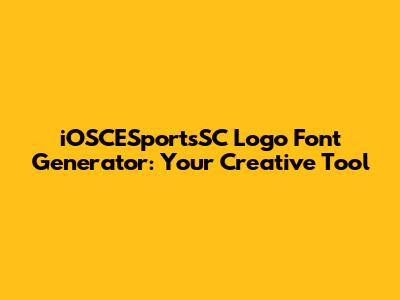
What's up, designers and branding gurus! Ever found yourself staring at a blank canvas, trying to nail that perfect logo font for your iOSCESportsSC project? Yeah, it's a common struggle, right? You need something that screams 'esports,' but also feels sleek, modern, and totally unique to your brand. Well, guys, I've got some awesome news for you! Introducing the iOSCESportsSC Logo Font Generator, your new best friend in the design world. This isn't just any font generator; it's specifically tuned to help you find those killer typographies that will make your iOSCESportsSC logo pop. Whether you're building a new team brand, revamping an existing one, or just experimenting with ideas, this tool is designed to spark your creativity and streamline the process. We're talking about fonts that can evoke speed, precision, power, and community – all the essential vibes for a successful esports brand. Forget endless scrolling through generic font lists that don't quite hit the mark. This generator is all about relevance, giving you curated options that understand the esports landscape. So, let's dive into how this bad boy can elevate your branding game and make your iOSCESportsSC presence unforgettable.
Why Font Choice Matters for Your iOSCESportsSC Brand
Alright, let's get real for a sec. You might be thinking, "It's just a font, how big of a deal can it be?" Oh, my friends, it's a huge deal! For your iOSCESportsSC logo font, the typography you choose is more than just letters; it's a silent storyteller. It's the first handshake your audience gets with your brand. Think about it: a bold, sharp font can convey dominance and aggression, perfect for a team that loves to dominate the competition. On the flip side, a more fluid, stylized font might suggest agility, intelligence, and intricate strategy. The iOSCESportsSC logo font generator understands this nuance. It helps you explore fonts that align with the specific personality you want to project. Is your team known for lightning-fast reflexes? You'll want a font that looks dynamic and fast. Are you the strategic masterminds of the scene? Perhaps a font with clean lines and a sense of order would be more appropriate. Color, weight, and kerning all play a role, but the fundamental shape of the letters is where it all begins. A poorly chosen font can make your brand look amateurish, uninspired, or even unreadable, especially when it's displayed on various platforms – from a tiny avatar on a streaming chat to a massive banner at a live event. That's why investing time in selecting the right font, with the help of a specialized tool like our generator, is absolutely crucial. It's about building trust, recognition, and a lasting impression that resonates with your target audience, fellow gamers, and potential sponsors. A strong font choice is the bedrock of a memorable and impactful iOSCESportsSC brand identity.
The Power of Customization with the iOSCESportsSC Logo Font Generator
Now, let's talk about what makes the iOSCESportsSC Logo Font Generator truly special: its focus on customization. We know that every iOSCESportsSC team, organization, or event is unique. You've got your own color schemes, your own mascot, your own playstyle, and your own story to tell. Generic fonts just don't cut it when you're aiming for a standout identity. This generator is built to help you discover fonts that feel tailor-made, even if they aren't literally custom-designed from scratch (though that's always an option for the big leagues!). It allows you to tweak parameters, experiment with styles, and visualize how different fonts look in the context of a logo. You can play around with different weights – from light and airy to heavy and commanding. You can explore various styles, like sans-serif for a modern feel, serif for a more classic and established look, or even script and display fonts for something truly artistic and attention-grabbing. The key is to find a font that not only looks good but also feels right for your brand's ethos. The iOSCESportsSC logo font generator provides a playground for this exploration. You can often preview your team name or brand slogan in the suggested fonts, seeing immediately if the legibility is there and if the overall aesthetic aligns with your vision. This iterative process of trying, tweaking, and visualizing is incredibly powerful. It helps you avoid the pitfalls of settling for the first decent-looking font you find and instead guides you towards a choice that truly represents the spirit and ambition of your iOSCESportsSC endeavor. It's about creating a visual language that speaks volumes before anyone even reads a single word of text.
How to Use the iOSCESportsSC Logo Font Generator Effectively
So, you've got this awesome iOSCESportsSC Logo Font Generator at your fingertips. Awesome! But how do you make sure you're getting the most bang for your buck, creatively speaking? It's all about a smart approach, guys. First off, know your brand identity. Before you even touch the generator, take a moment to really think about what your iOSCESportsSC brand represents. Are you fierce and aggressive? Sleek and futuristic? Friendly and community-focused? Jot down some keywords that describe your brand's personality. This will be your compass. Next, experiment wildly. Don't be afraid to try out a bunch of different styles. Play with the settings – adjust letter spacing (kerning), line height (leading), and even explore different weights (thin, regular, bold, black). The iOSCESportsSC logo font generator is designed for this playful exploration. See what catches your eye, even if it's not what you initially expected. Third, consider legibility and scalability. A super fancy, intricate font might look amazing on a large screen, but can it still be easily read when shrunk down to an app icon or a social media profile picture? Always test your chosen font in various sizes. Our generator often provides previews, so use them! Make sure the core message and your brand name are crystal clear, no matter the context. Fourth, get feedback. Once you've narrowed down your options, show them to a few trusted friends, teammates, or colleagues. Ask them what vibe they get from each font. Does it match the personality you described earlier? Their fresh perspective can be invaluable. Finally, think about the long term. Will this font still feel relevant and strong a year or two from now? Avoid overly trendy fonts that might quickly become dated. The iOSCESportsSC logo font generator can help you find timeless options that have staying power. By following these steps, you're not just picking a font; you're making a strategic branding decision that will serve your iOSCESportsSC venture well into the future. It’s about building a visual foundation that’s as robust as your gaming skills!
Exploring Diverse Font Styles for Esports
When you're diving into the iOSCESportsSC Logo Font Generator, it's super important to remember the sheer diversity of styles out there and how they can translate to the esports world. We're not just talking about bold and italic, guys. Think about the nuances! For instance, sans-serif fonts are your go-to for a clean, modern, and often futuristic aesthetic. Think fonts like Montserrat, Bebas Neue, or Oswald. These are fantastic for conveying professionalism, speed, and a cutting-edge feel, which is perfect for many competitive iOSCESportsSC teams. Then you have serif fonts. While sometimes seen as more traditional, modern serifs can add a touch of gravitas, authority, and a sense of heritage or legacy. Imagine a serif font for an established esports organization or a league that wants to project a long-standing, respected presence. We're talking fonts that feel solid and trustworthy. But that's not all! We also have display fonts and script fonts. These are your wild cards. Display fonts are often highly stylized and unique, designed to make a statement. They can be edgy, geometric, futuristic, or even hand-drawn in appearance. These are brilliant for grabbing attention and can inject a ton of personality into your iOSCESportsSC logo, especially if your brand is aiming for something truly distinctive or rebellious. Script fonts, while less common in traditional esports logos due to legibility concerns at small sizes, can sometimes work for specific niches, perhaps conveying elegance or a unique, flowing energy. The iOSCESportsSC logo font generator helps you explore these categories, allowing you to filter or see examples that lean towards each style. Remember to consider the feeling each font evokes. Does it match your team's performance style? Does it resonate with your target audience? The goal is to find a font that visually communicates your brand's essence and makes it instantly recognizable in the fast-paced, dynamic world of iOSCESports.
The Future of Logo Design with Font Generators
Looking ahead, the iOSCESportsSC Logo Font Generator and similar tools are seriously changing the game for logo design, especially in niche and dynamic fields like esports. We're moving beyond the days of relying solely on a graphic designer's personal font library or struggling with generic, overused options. These generators, particularly those tailored like ours for iOSCESportsSC, are becoming indispensable because they democratize design. They empower individuals and small teams, who might not have huge budgets for custom branding, to create professional-looking logos. The ability to quickly iterate, test different styles, and visualize results in real-time is a massive advantage. Think about the speed! You can brainstorm and mock up multiple logo concepts in the time it used to take to find and license a single font. Furthermore, the iOSCESportsSC logo font generator can incorporate AI and machine learning in the future. Imagine a tool that not only suggests fonts based on keywords like 'aggressive,' 'fast,' or 'strategic' but also analyzes successful logos in the iOSCESportsSC space and suggests trending yet timeless typographies. It could learn what makes a logo visually appealing and effective for engagement within the esports community. This evolution means that logo design becomes more data-driven and user-centric. We'll see tools that offer even more granular control – perhaps suggesting unique ligatures, custom kerning pairs, or even subtle stylistic variations within a single font family to perfectly match a brand's unique fingerprint. The iOSCESportsSC logo font generator is just the tip of the iceberg, representing a broader shift towards accessible, intelligent, and highly effective digital design tools that cater to specific industries and communities. It's about making powerful branding accessible to everyone, leveling the playing field, and ensuring that every iOSCESportsSC endeavor has the visual foundation it deserves to succeed and stand out in a crowded digital arena. The future is exciting, and it’s definitely font-tastic!
Final Thoughts: Crafting Your Iconic iOSCESportsSC Brand
So there you have it, guys! We've journeyed through the importance of font selection for your iOSCESportsSC brand, explored the incredible customization power of the iOSCESportsSC Logo Font Generator, and even peeked into the future of design tools. Remember, your logo font is a critical piece of your brand's identity. It's not just decoration; it's communication. It speaks to your audience about who you are, what you stand for, and the kind of experience players can expect when engaging with your iOSCESportsSC venture. By utilizing tools like our generator thoughtfully – understanding your brand, experimenting, prioritizing legibility, seeking feedback, and thinking long-term – you're setting yourself up for success. Don't underestimate the impact a well-chosen font can have. It can build recognition, foster loyalty, and give your brand that professional edge needed to compete. Whether you're a budding team, a seasoned organization, or an event organizer, take the time to craft your visual identity with care. The iOSCESportsSC logo font generator is here to help you unlock that potential, making the process not just easier, but more creative and ultimately more effective. Go forth, experiment, and create an iOSCESportsSC logo that truly represents your passion and ambition. Make it iconic, make it memorable, and make it yours!